font racing: Adding Speed and Excitement to Typography
Typography plays a vital role in design, be it for print or digital media. It not only conveys information but also sets the overall tone and mood of the content. One particular font style that brings speed and excitement to typography is the Font Racing.
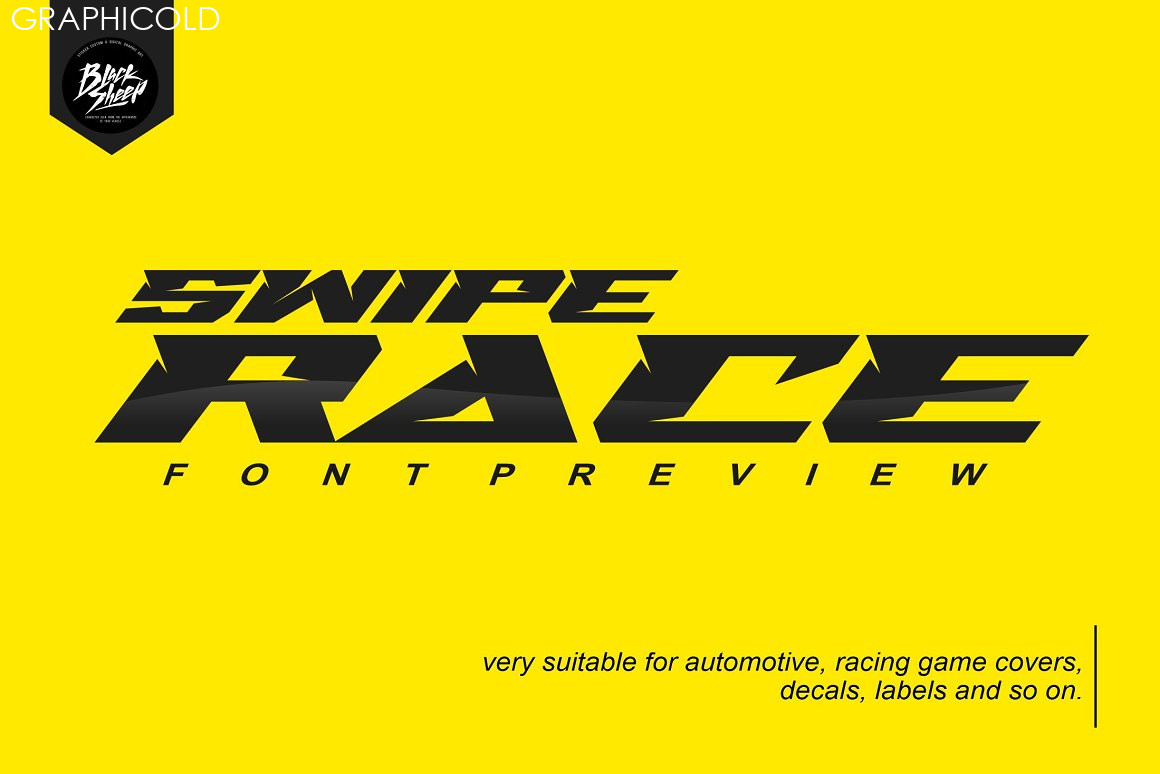
Font Racing, also known as Racing Sans One or Racing Numbers, is a typeface inspired by the typography used in motorsports. It is characterized by its bold and angular letters, resembling the letterforms found on racing car number decals or trackside signage. The font is often associated with speed, power, and adrenaline, making it a perfect choice for projects related to racing, automotive, or any high-energy industry.
The prominent features of Font Racing include its wide letter spacing, tall and narrow letterforms, and sharp angles. These design elements create a sense of movement and dynamism, mimicking the fast-paced nature of racing. When used in headlines or titles, Font Racing grabs the attention of the audience and immediately conveys a sense of urgency or excitement.
The font’s versatility allows it to be used in various design applications. In addition to racing-related projects, Font Racing can also be used in sports-related designs, such as posters, banners, or team jerseys. Its bold and eye-catching appearance instantly captures the spirit of competition and athleticism.
Furthermore, Font Racing is not limited to just digital media. It can also be utilized in printed materials, such as magazines, brochures, or event tickets. The font’s unique style makes it stand out from traditional typefaces, giving a modern and edgy look to any printed design.
Designers often combine Font Racing with other typefaces to create a balanced and visually appealing composition. Pairing it with a clean and minimalist font for body text allows the racing font to take center stage while maintaining readability. This combination creates a harmonious contrast that enhances the overall visual impact of the design.
In conclusion, Font Racing brings speed and excitement to typography through its bold and angular letterforms. Its association with motorsports and high-energy industries makes it a popular choice for racing-related projects. Whether it’s for digital or print media, Font Racing adds a sense of movement and dynamism to any design. By combining it with other typefaces, designers can create visually captivating compositions that leave a lasting impression on the audience. So, if you’re looking to inject a dose of speed and adrenaline into your design, Font Racing is undoubtedly worth considering.